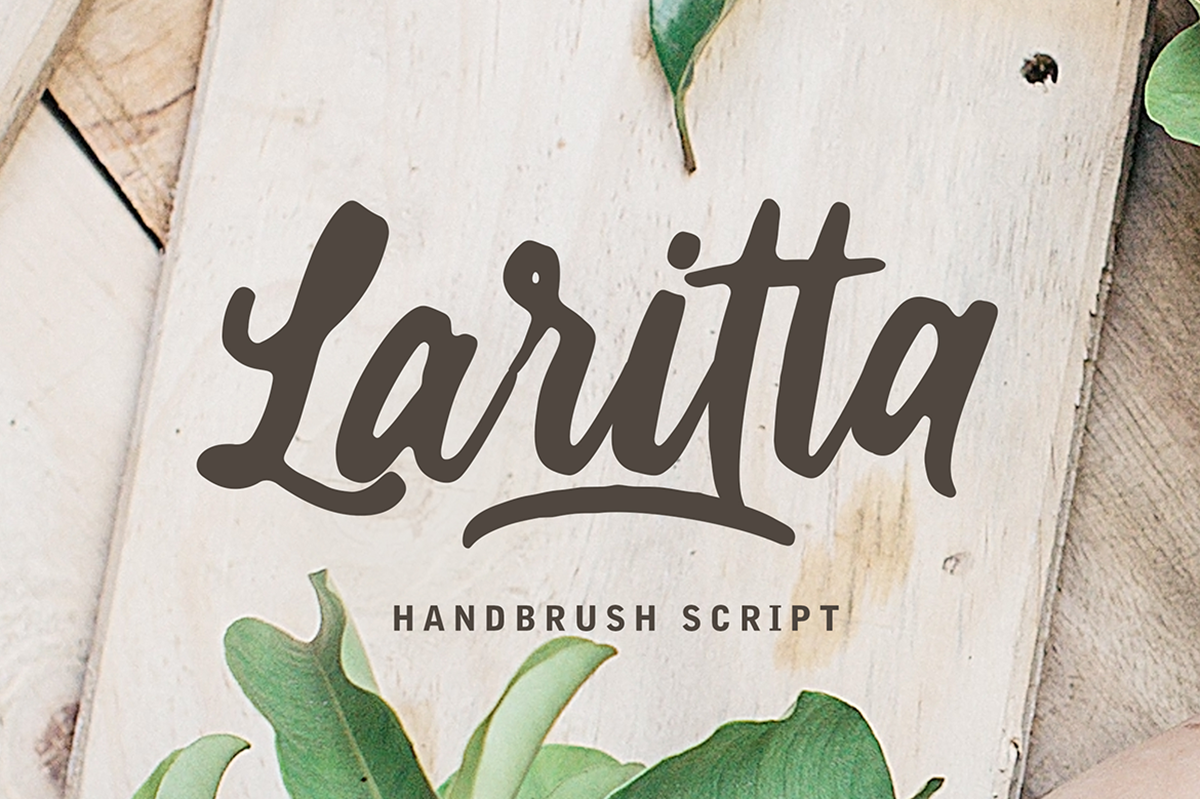
Laritta Free Font
Laritta Free Font fuses elegance and authenticity into one truly beautiful and original crafting font. It will easily turn any design project into a true masterpiece. This free typeface was designed by a talented Weape Design. If you like it don’t forget to check out the full version.